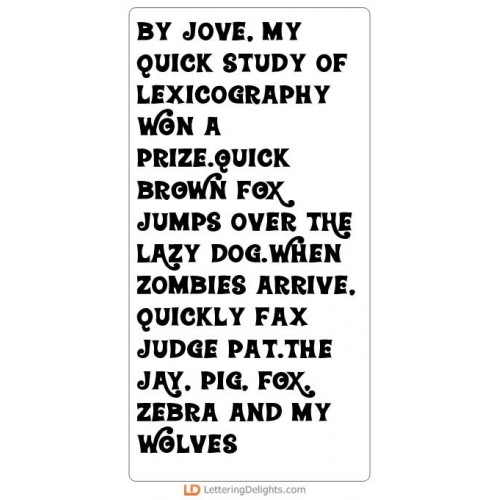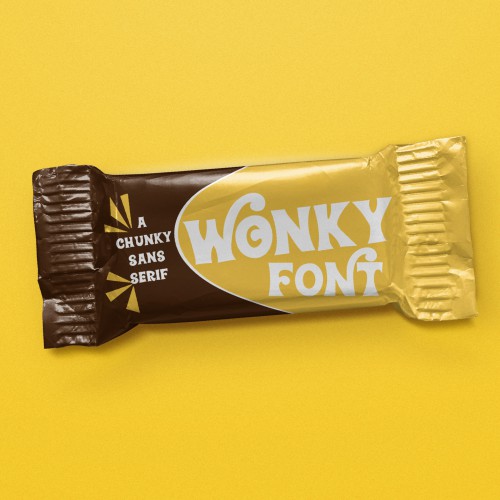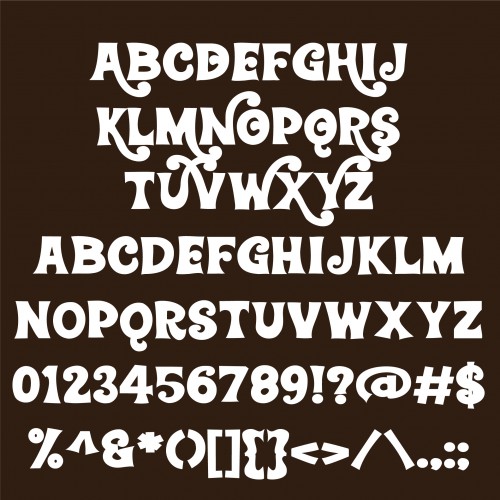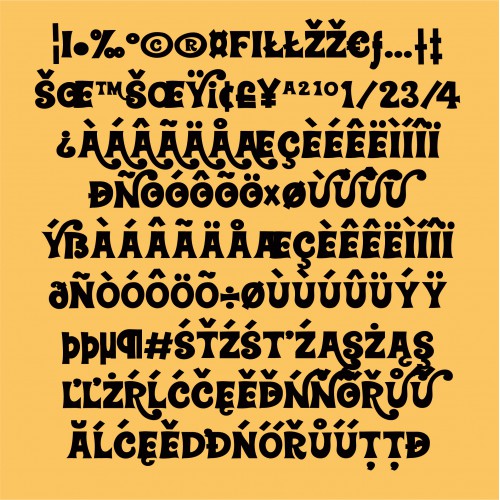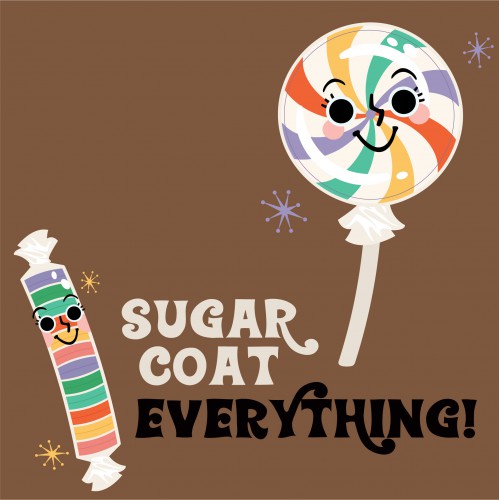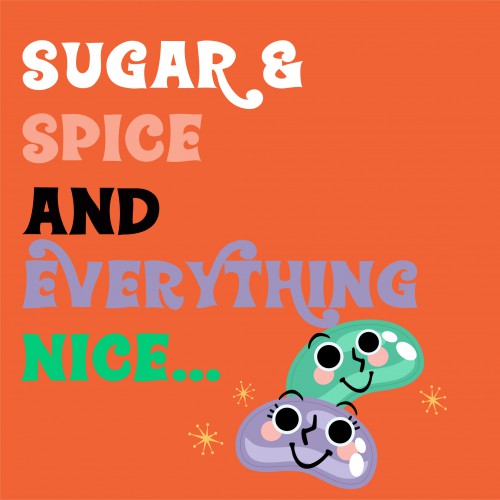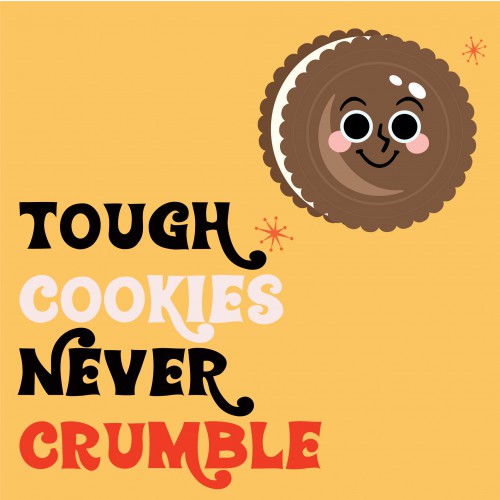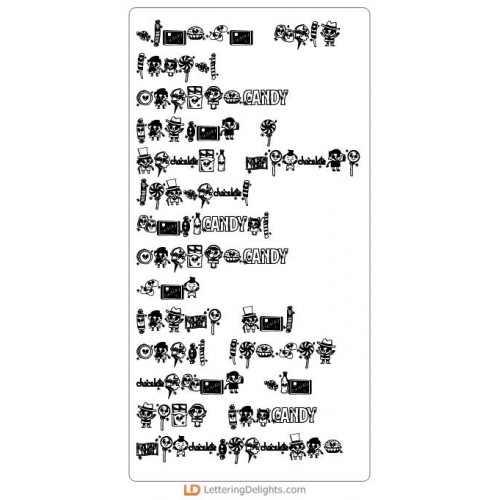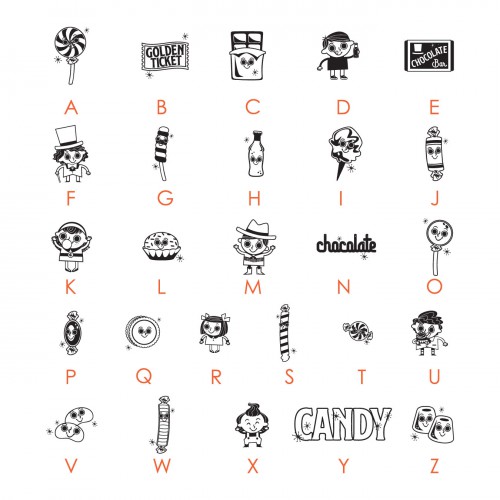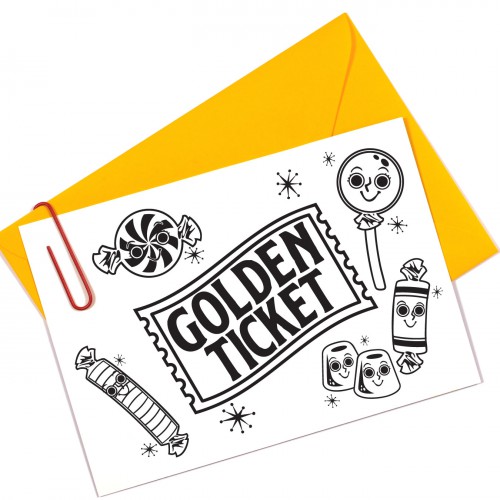
Candy Factory - Big Bundle
Our Candy Factory Collection freatures adorable retro style candies, friends and factory perfect for parties, crafts, gifts, planner stickers, scrap book pages and more!
ZP Wonky Font - FN
This thick and chunky font has a few uppercase letters with extra flourishes. Mix cases up for best ..
PN Nougat Candy - FN
This pretty script is very upright and has an alt case with stylistic endings...
PN Willowbrook - FN
This blocky sans-serif font does not have a lowercase...
DB - Candy Factory - DB
This fun doodlebat features 26 different candies and candy factory friends perfect for cards, crafts..
DB Candy Factory - Build - A - Factory - DB
Create your own factory with this fun doodlebat perfect for cards, crafts, gifts, planner stickers, ..
Candy Factory - GS
These adorable retro style candies are perfect for cards, crafts, gifts, decor, planner stickers, sc..
Candy Factory - CS
These cuttable and adorable retro style candies are perfect for cards, crafts, gifts, decor, planner..
Candy Factory - Friends - GS
These adorable retro style friends love sweets and are perfect for cards, crafts, gifts, decor, plan..
Candy Factory - Friends - CS
These cuttable and adorable retro style friends love sweets and are perfect for cards, crafts, gifts..
Candy Factory - Build - A - Factory - GS
Create your own factory with this fun graphic perfect for cards, crafts, gifts, planner stickers, pa..
Candy Factory - Build - A - Factory - CS
Create your own factory with this fun cuttable graphic perfect for cards, crafts, gifts, planner sti..
Candy Factory - Photo Props - CP
These fun photo props are easy to create and perfect for parties, events and more!..
Candy Factory - AL
This fun candy themed alphabet coordinates with our Candy Factory Collection perfectly...
Candy Factory - PP
This adorable paper pack coordinates with our Candy Factory Collection perfectly...
Candy Factory - Party - PR
This printable party pack uses our fun Candy Collection and is perfect for easy parties, just print ..